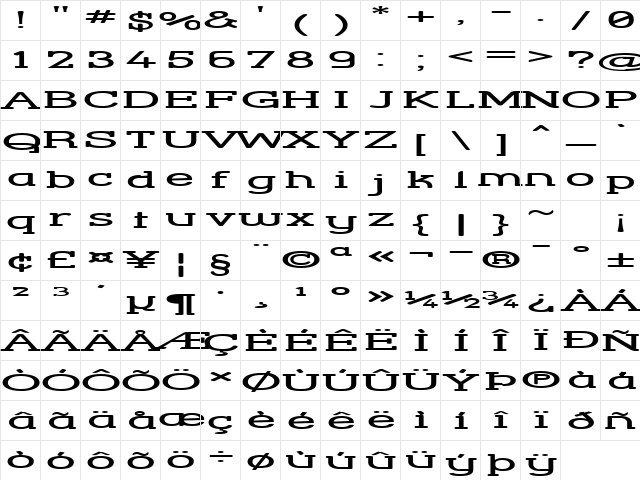
Street Corner Slab HyperExtend Regular
Design Context for Street Corner Slab HyperExtend Typeface
Street Corner Slab HyperExtend combines the readability of serif typography with the visual weight of a slab construction, resulting in a typeface that feels both authoritative and approachable.
Suited to magazines, political campaign materials, bold packaging, and any setting where authority matters.
Pro Tip: Use Street Corner Slab HyperExtend for headlines and subheadings where its slab serifs can make an impression. It also holds up well in mid-size body copy thanks to its sturdy construction.